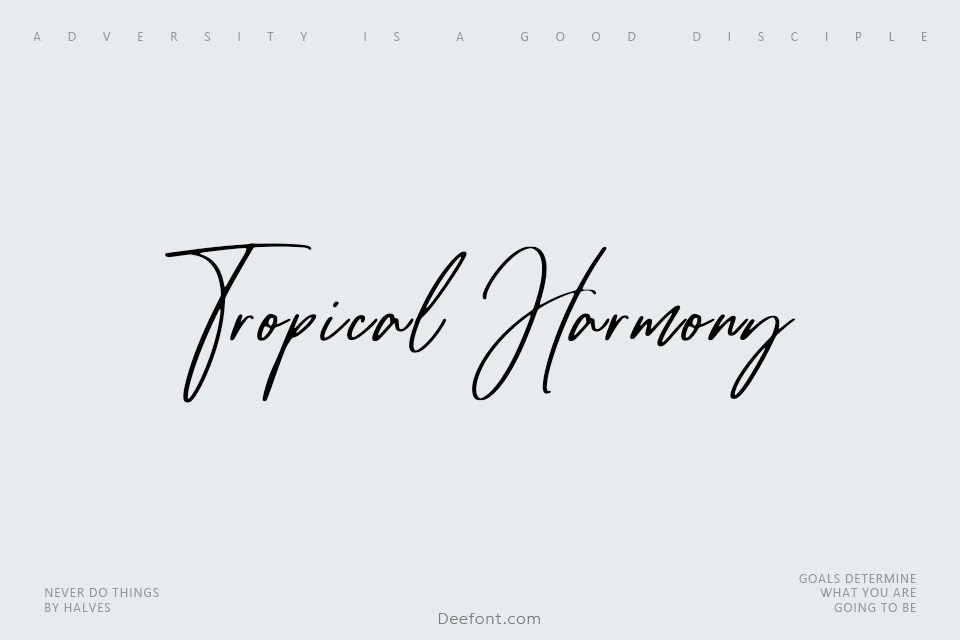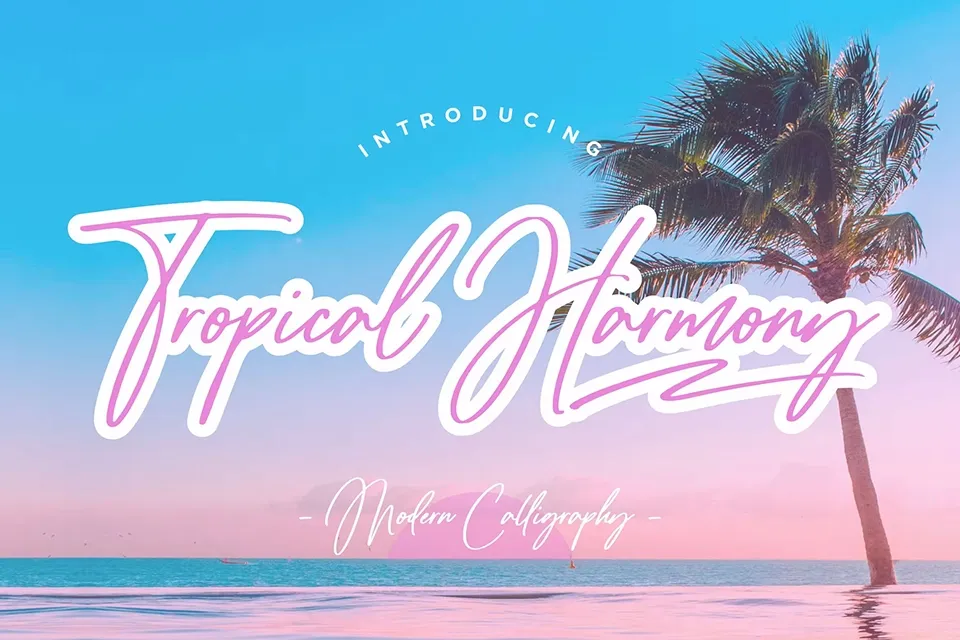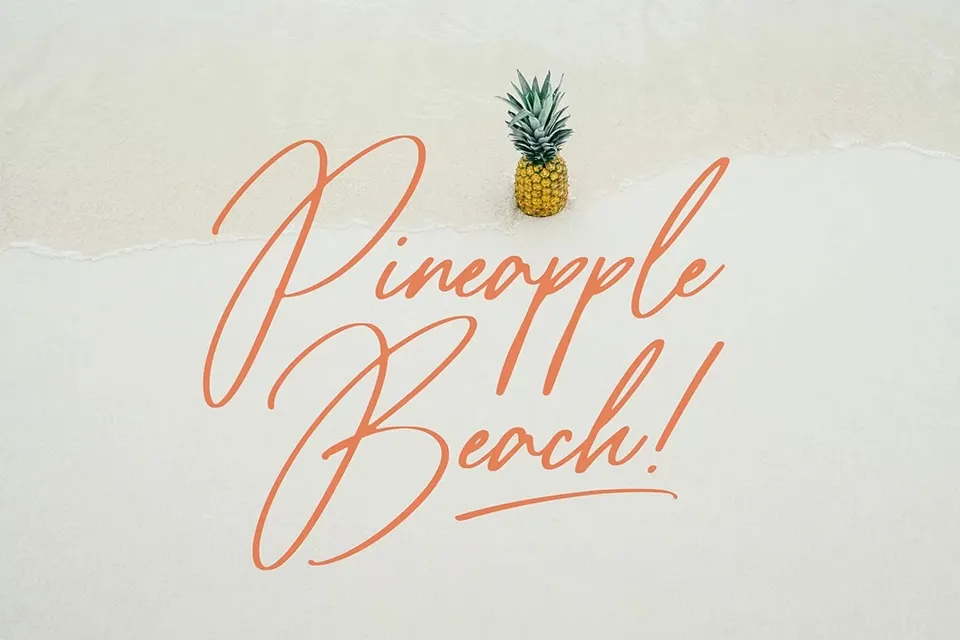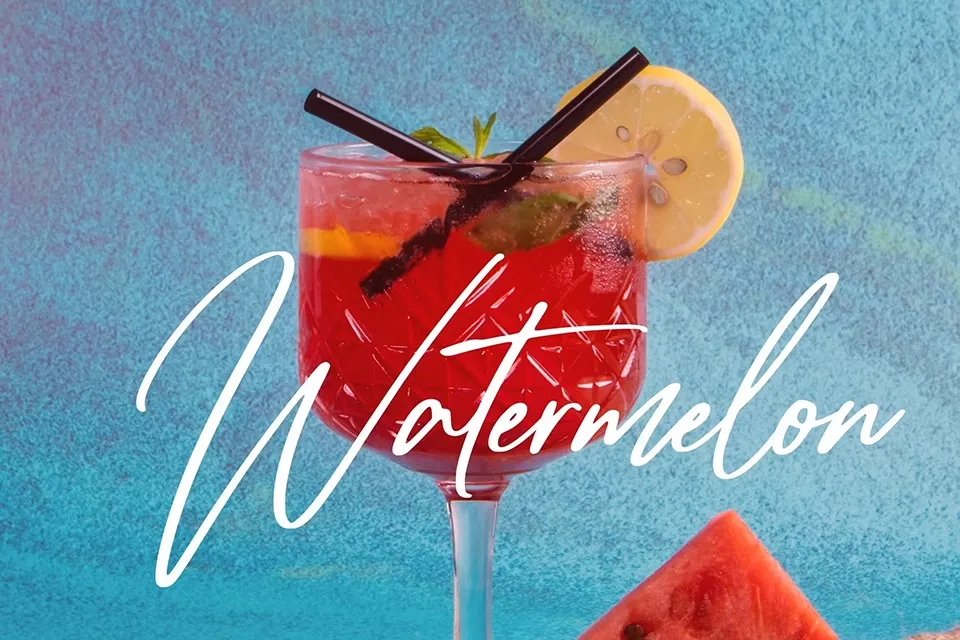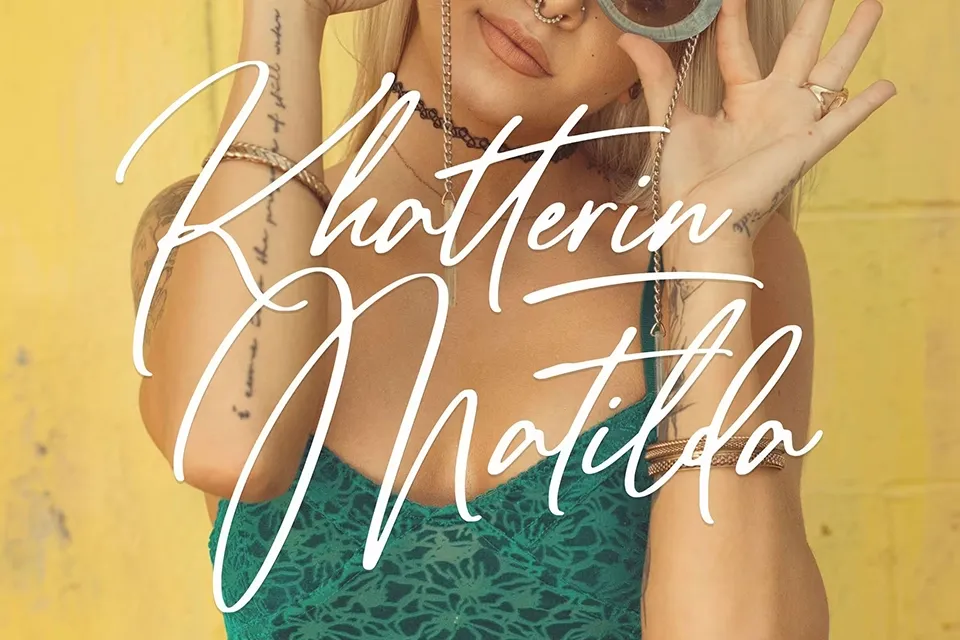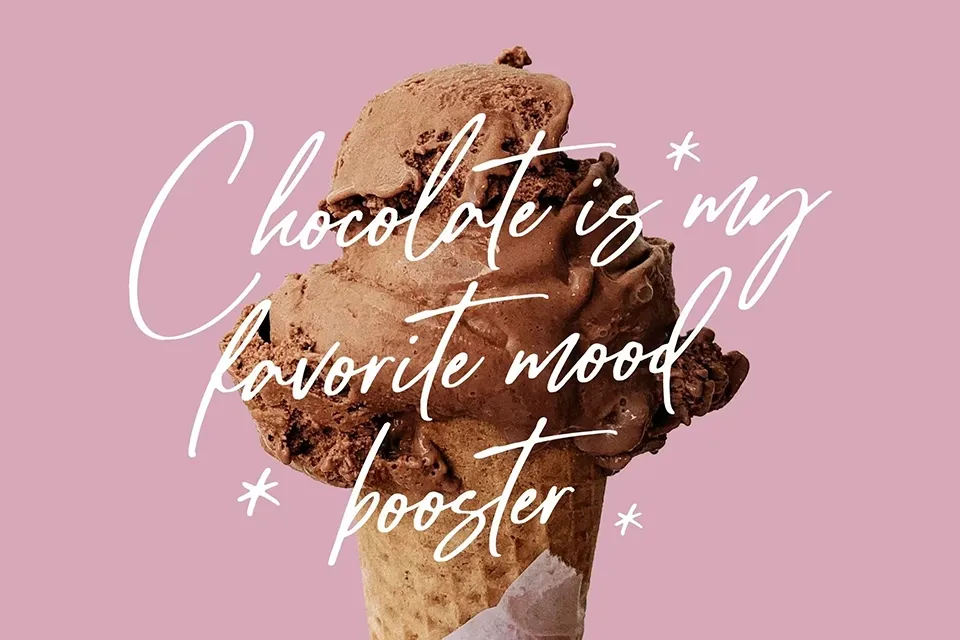
Tropical Harmony Font
Tropical Harmony Font is a modern calligraphy font designed with an enchanting handwritten style. This versatile script font offers a wide spectrum of applications, from greeting cards to branding projects, making it an excellent choice for creative designs that require a touch of elegance and personality.